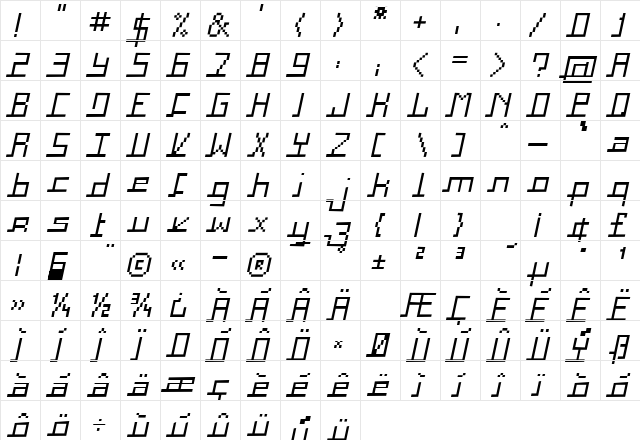
Square Italic Font Preview
Square Italic
Square Italic Font Details
Design Context for Square Typeface
Square offers clean, dependable letterforms without strong stylistic allegiance, making it a practical choice for designers who need flexibility. The dynamic lean of this cut emphasises speed and emphasis in any layout.
Pro Tip: Try Square for annotation and caption copy alongside an upright companion — the contrast in angle creates a dynamic but ordered typographic system.